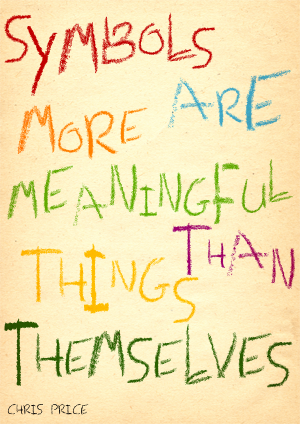
the effect is totaly crazy in the FS viewer...nice work keep going :)
Too bad you didn´t participate in the handmade competition with this one! Great font, great efforts! 16 hours to go...my 10 is waiting for you.
Ah UWE is back, hurray!
These are very big and complex glyphs. FontStruct does have its limits – you may start having saving problems at some point, depending on how big your character set becomes, and you also might have problems downloading - just a heads up. I would make a clone after, say, every five letters – as a backup. If your font does get too big for the system you can split it into two e.g. one for upper-case, one for lower.
Looks spectacular at the moment, great technique. I'd be worried about crashing the system though. As it soooo BIG. Keep saving every step of the way, and make back up copies, otherwise you could lose it all.
Thanks for the tips guys, much appreciated. I was shown yesterday how to create composite bricks, I could probably have had smaller glyphs if I had used that technique but i would have to start again, maybe i could for the lower case
Thumbs WAY up! 10/10
Hi there, really cool font. I'm new and I was wondering how you created this font. Did you do that all with this site or there's a way to import illustrator files?
@DesigningOnTea: I might just peek under the hood of a clone to see this ultra hi-res approach is action. Clearly you went sub-pixel here, which is admirable and astounding. The texture is so convincing I imagine you must have used some transparent window overlay strategy to capture it from the threshold of a scanned source. @meek, this reminds me: Template layers would be a wonderful official “expert” feature to use in conjunction with unlimited guidelines!
I also wanted to share this with y’all, a viral piece that just cried out for crayons. I could have varied the size of the glyphs for an even more convincing result (as in DOT’s beautiful examples.)
Crayonby DesigningOnTea